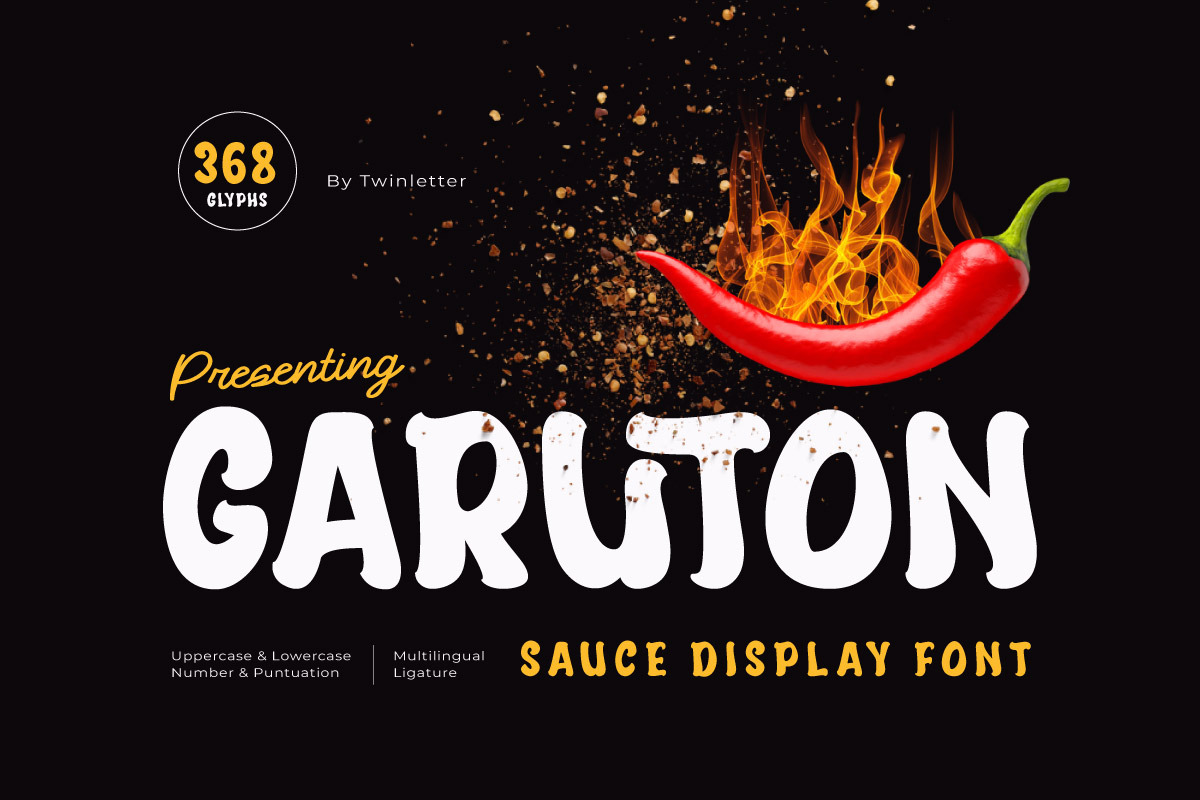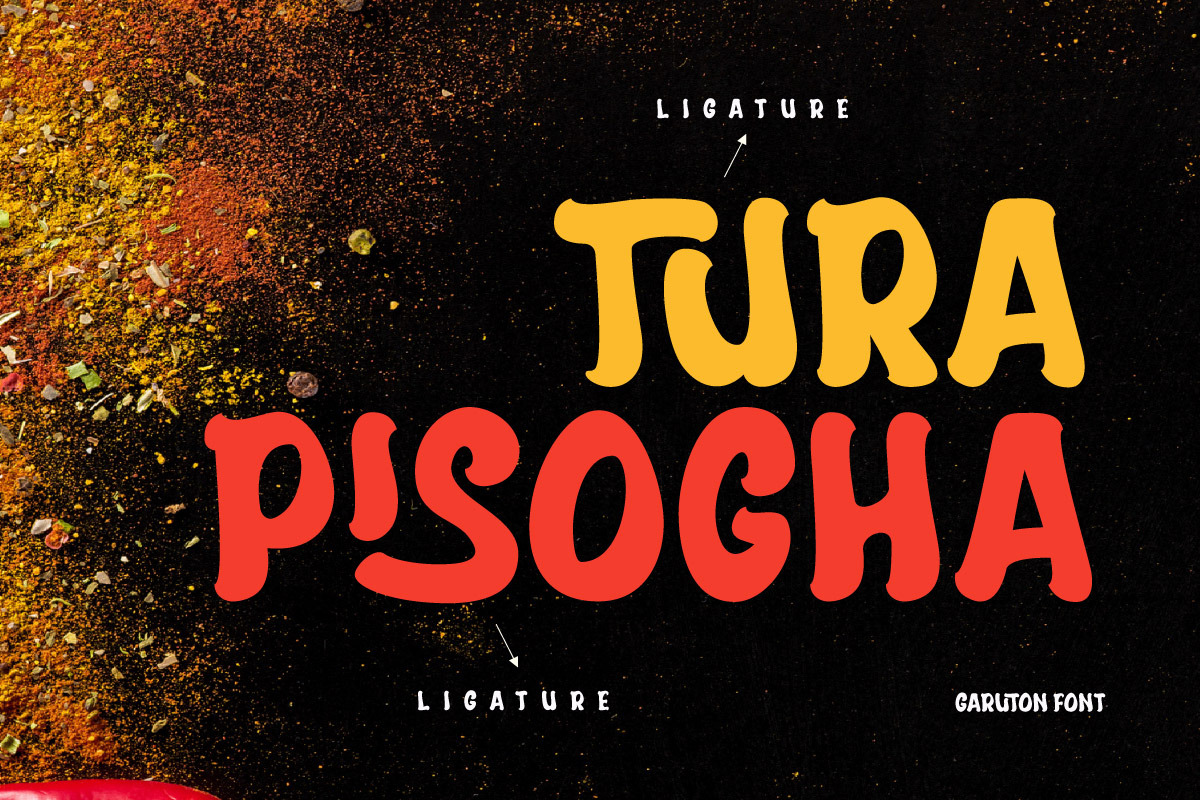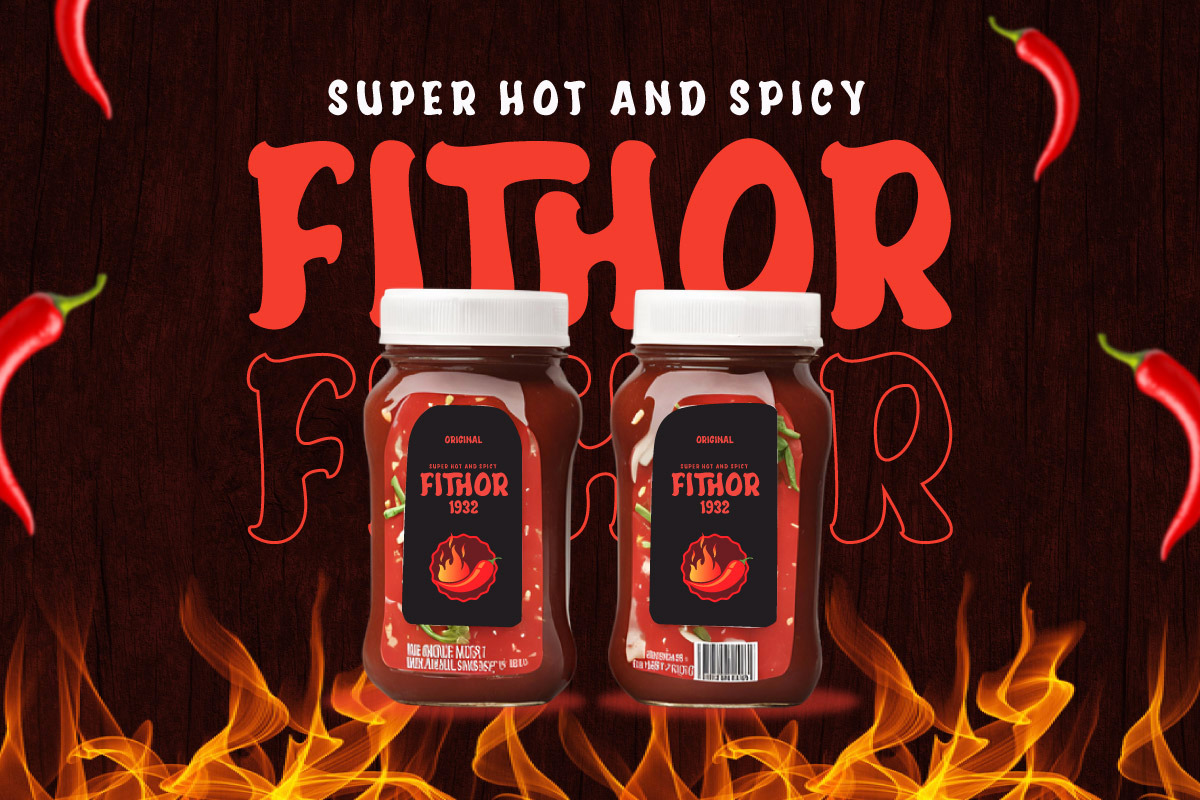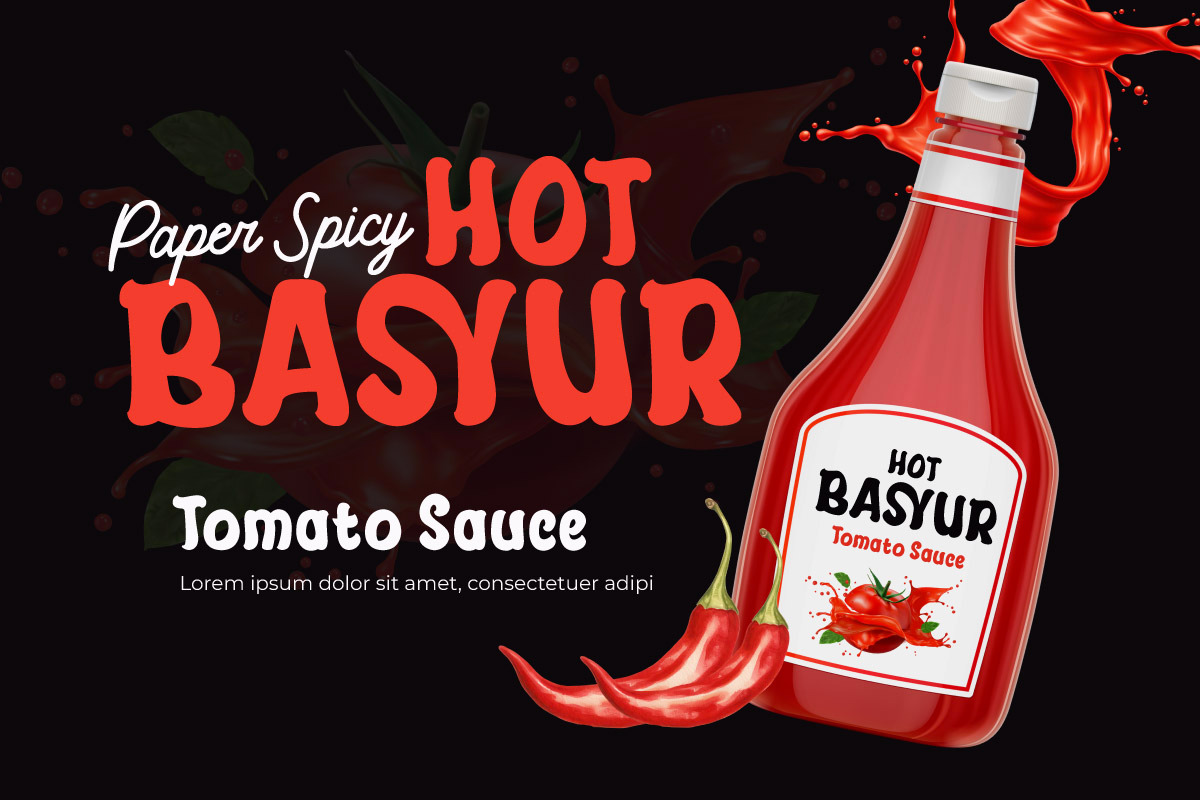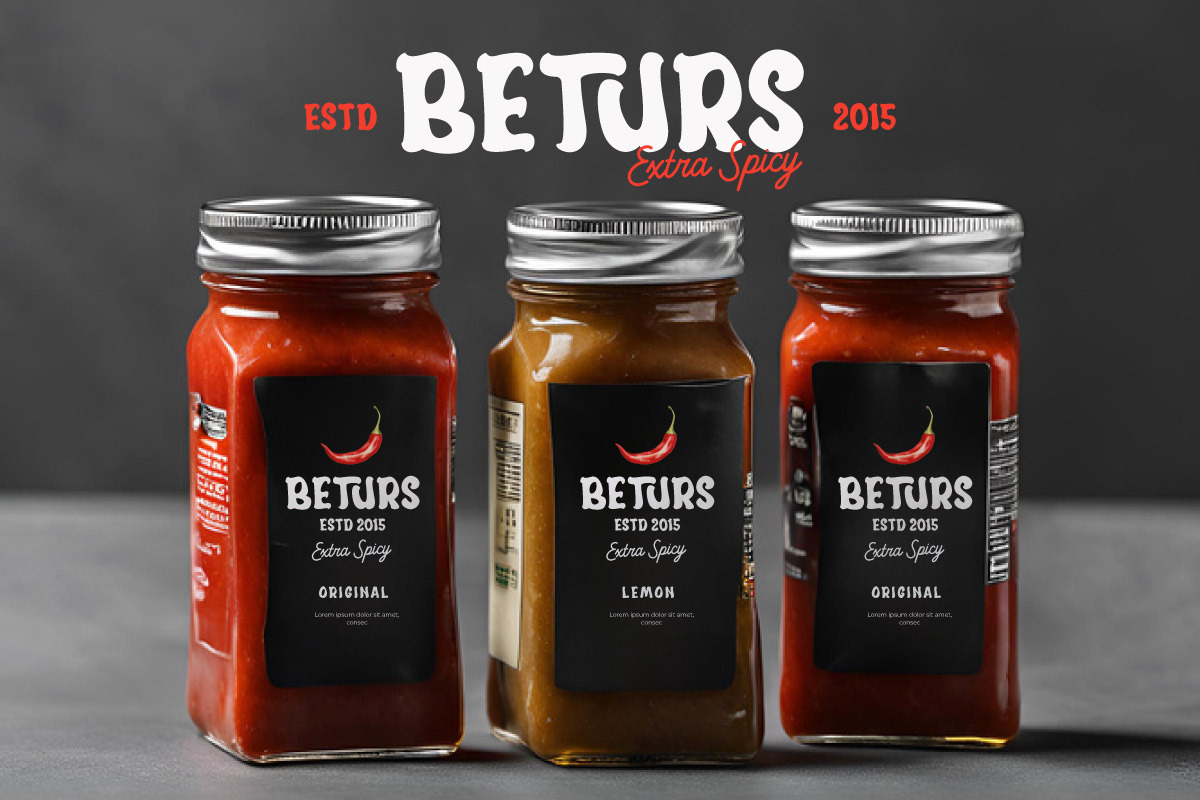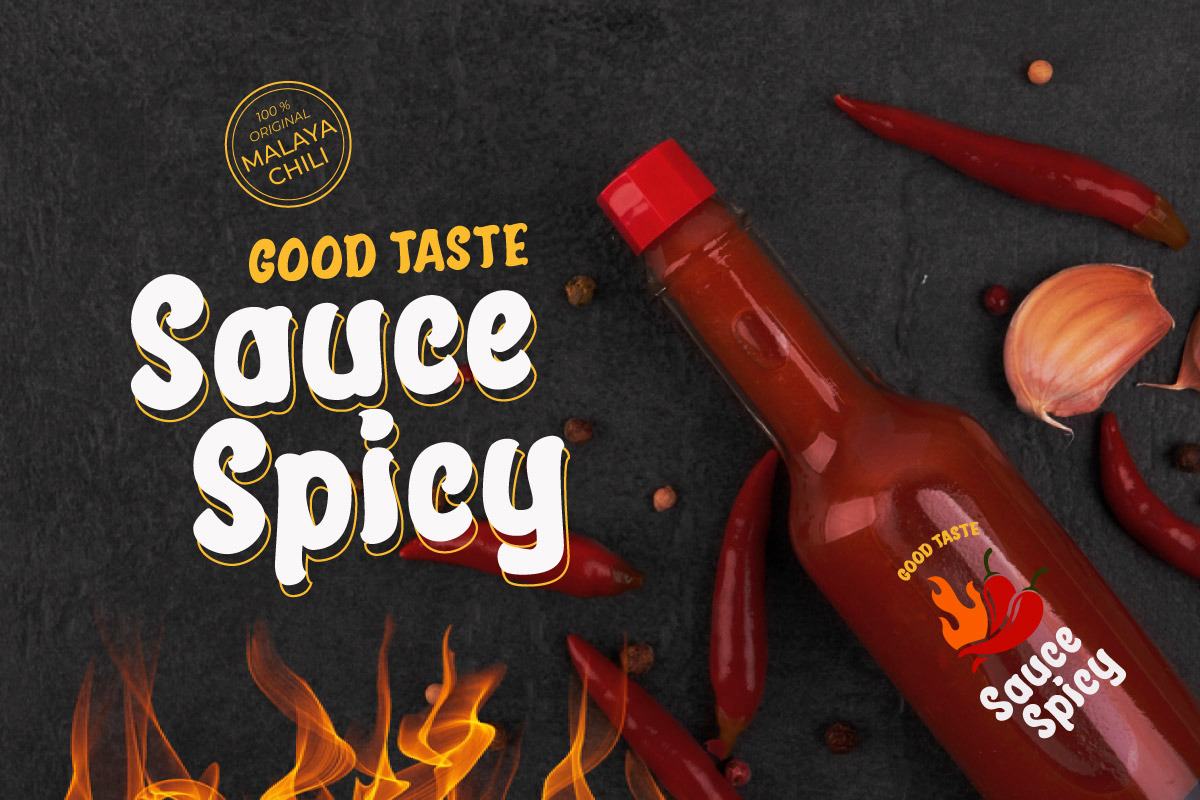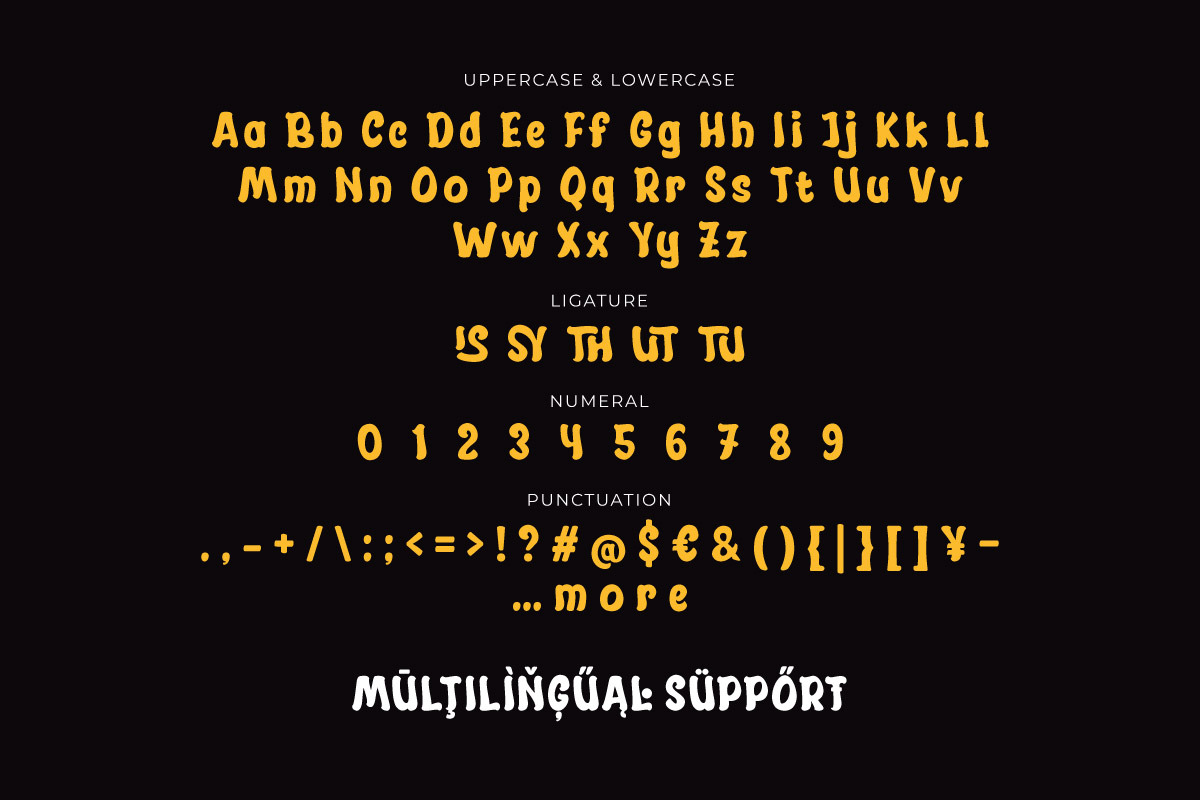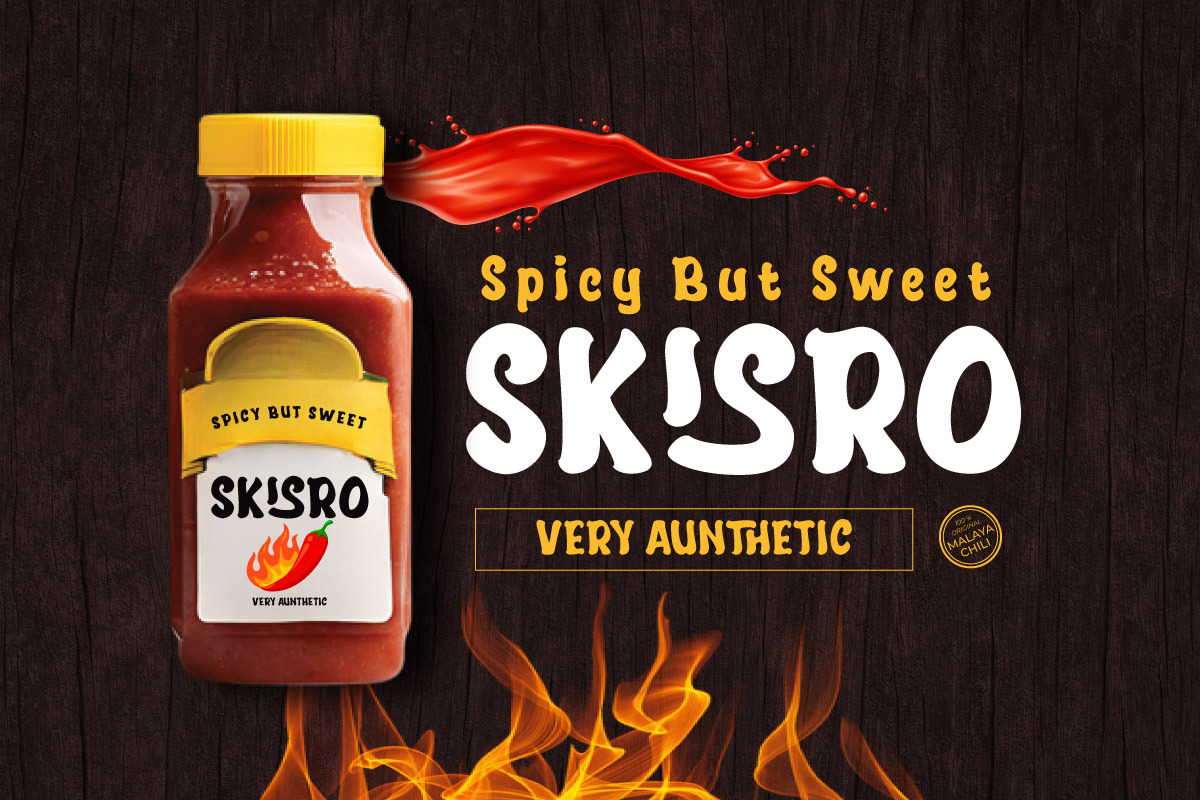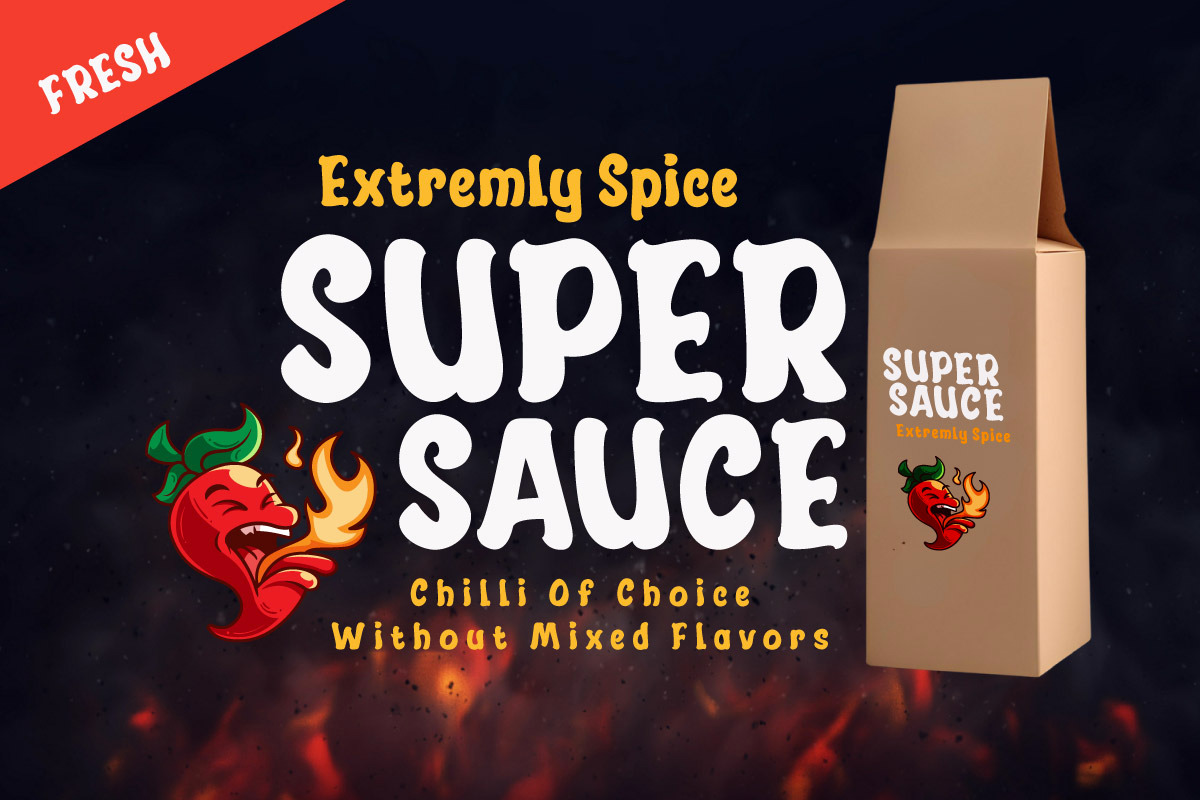
Garuton - Sauce Display Font
Presenting Garuton - Sauce Display Font For designs that demand attention and personality, Garuton offers a bold statement with its Sauce Display Font style. Inspired by urban culture and graffiti art, Garuton blends raw energy with typographic finesse, making it perfect for headlines, logos, and branding that need to stand out from the crowd.
Why Choose Garuton? Garuton isn't just another display font; it's a statement. Whether you're designing a streetwear brand, creating impactful signage, or developing eye-catching social media graphics, Garuton empowers your message with its bold and unapologetic style.
- Fonts include Multilingual support